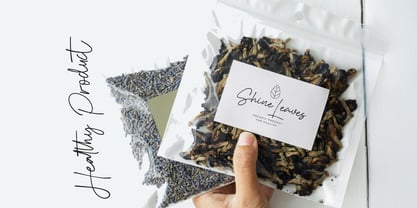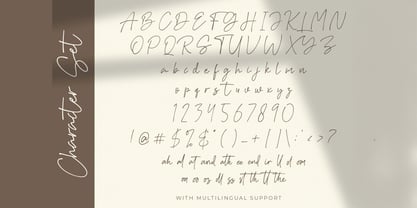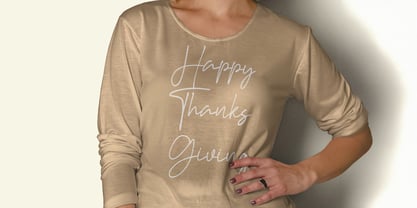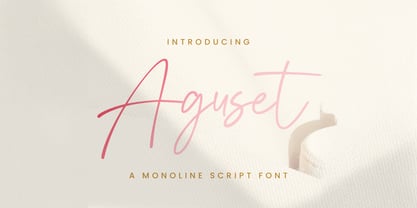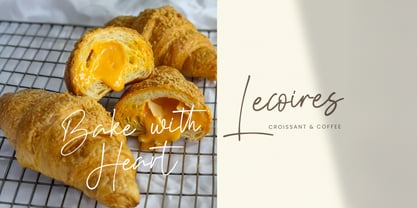
La familia tipográfica Aguset fue diseñada por Virgiawan Listanto y publicada por Stringlabs Creative Studio. Aguset contiene 1 estilos.
Aguset is a smooth and elegant handwritten font that combines simplicity with a touch of sophistication. Its flowing strokes and natural rhythm make it perfect for adding a personal, refined feel to your designs without losing clarity. Great for logos, invitations, quotes, and branding, Aguset brings a modern handwritten charm that’s both versatile and expressive.